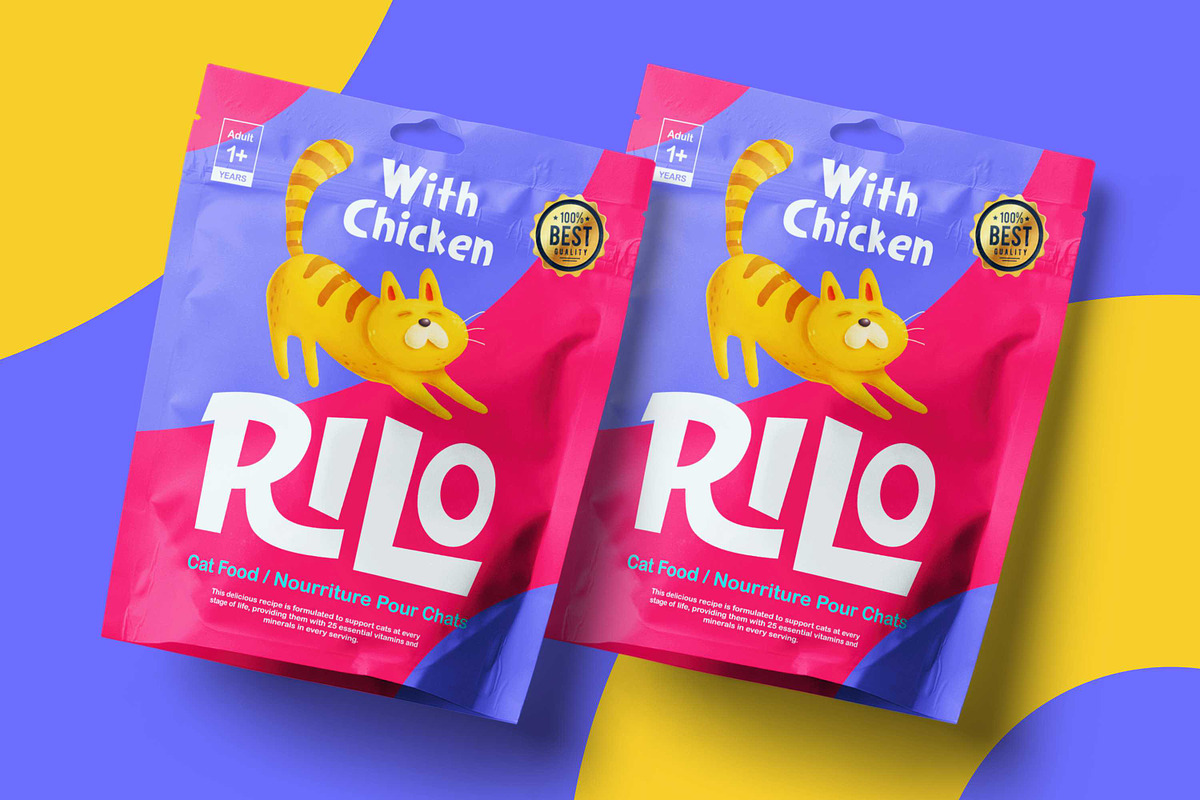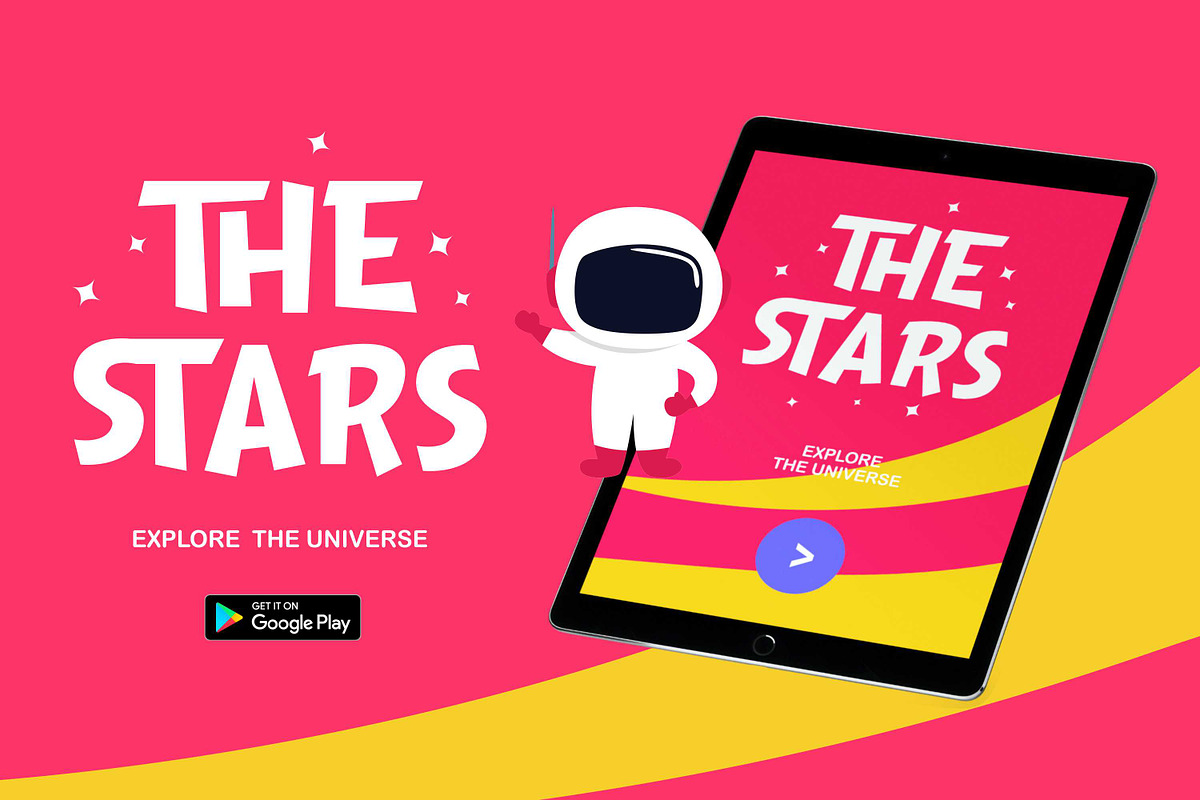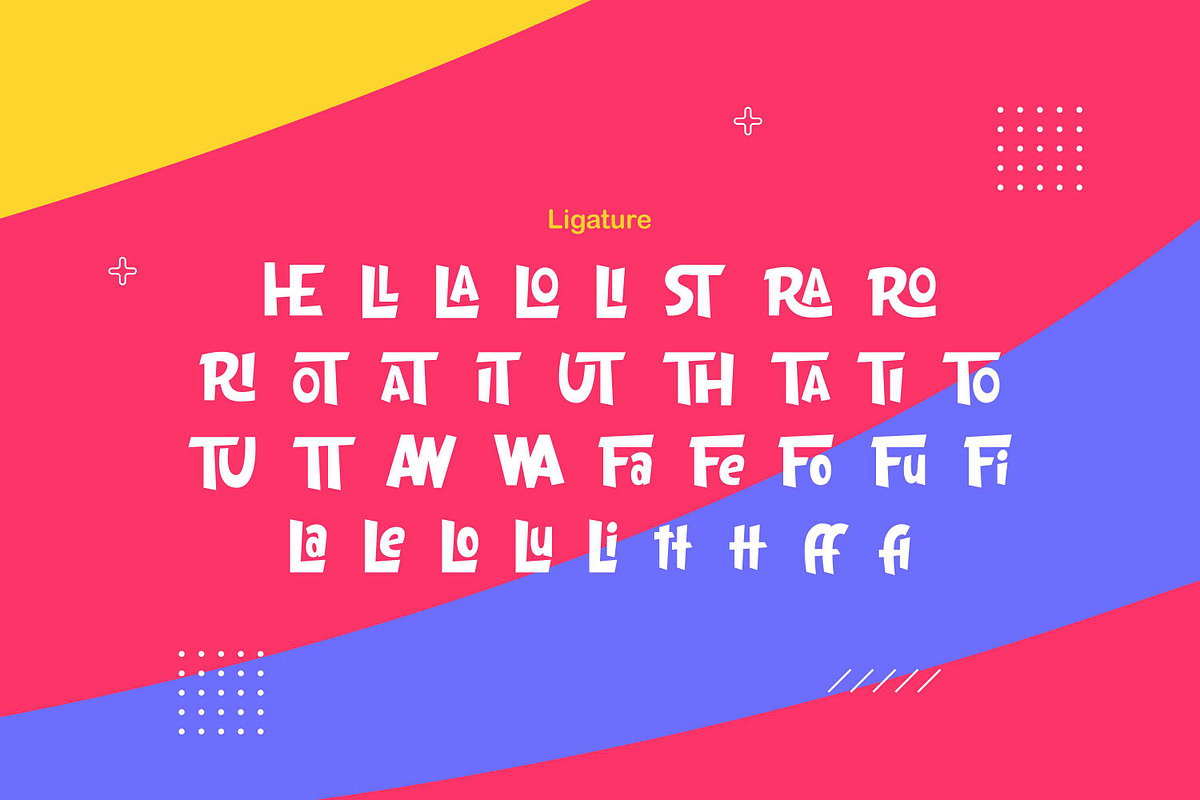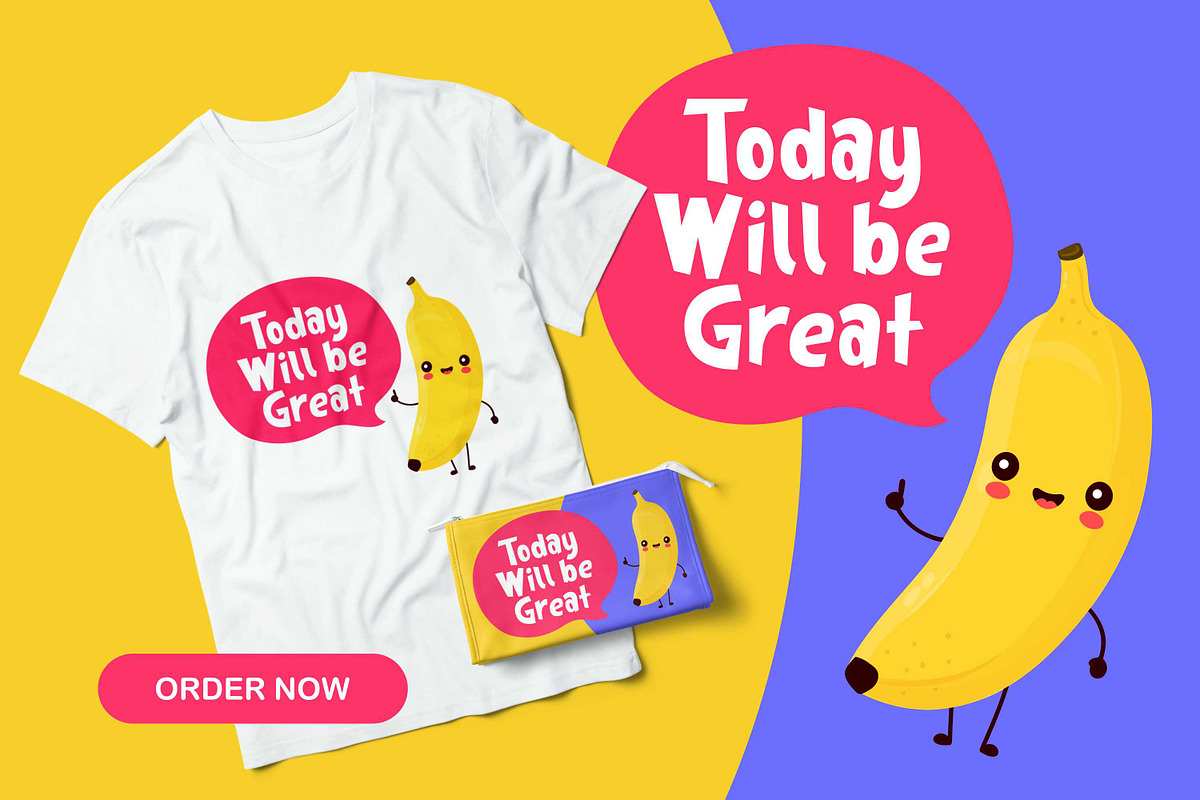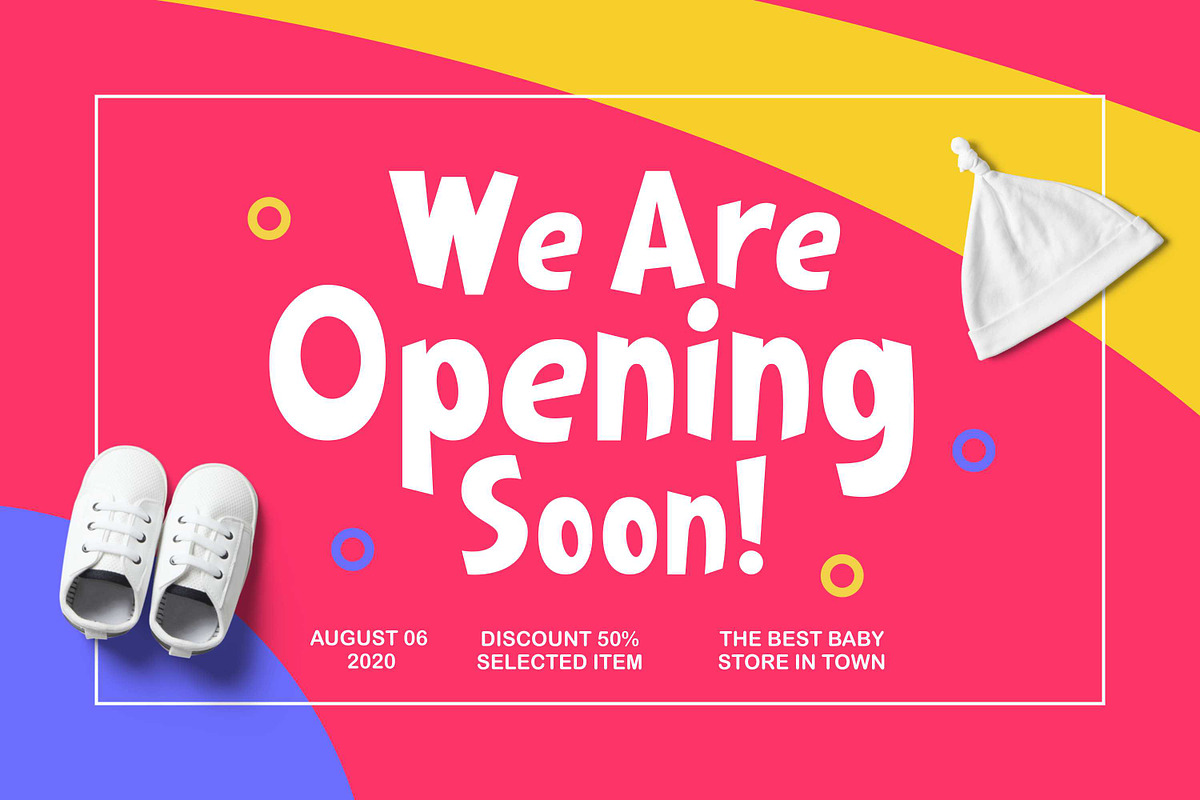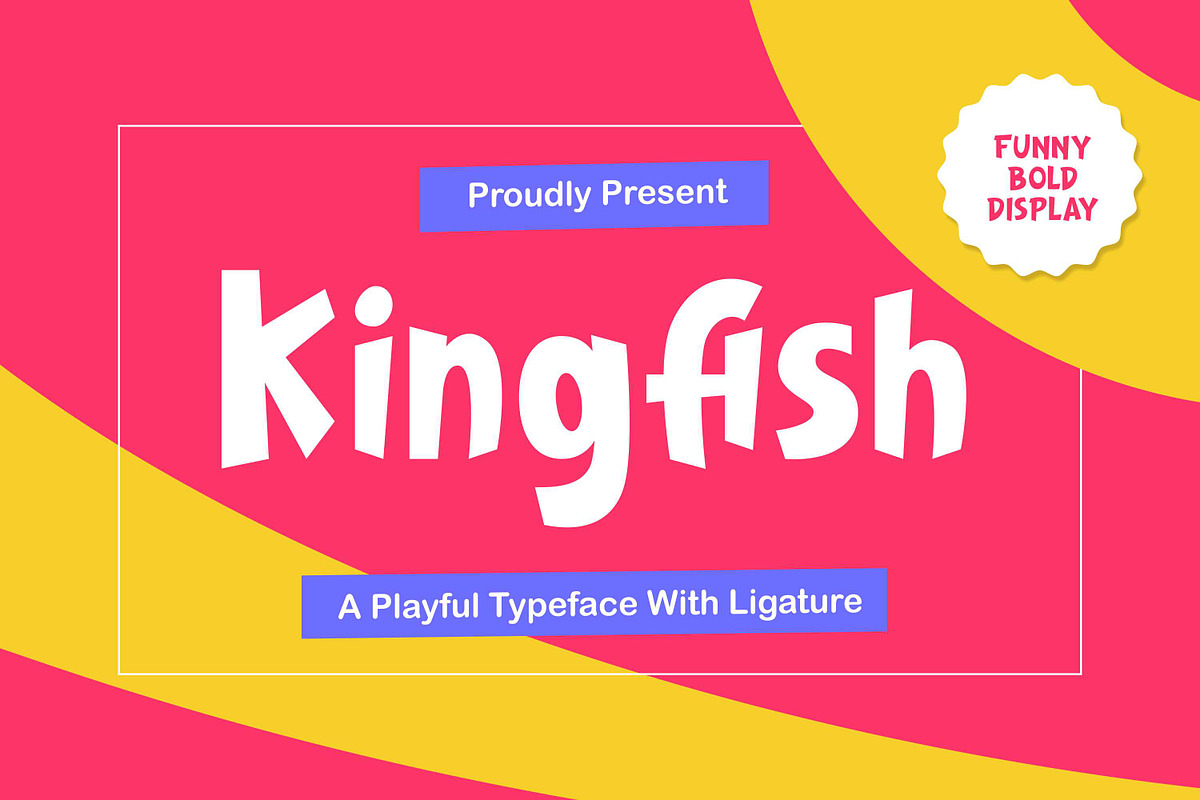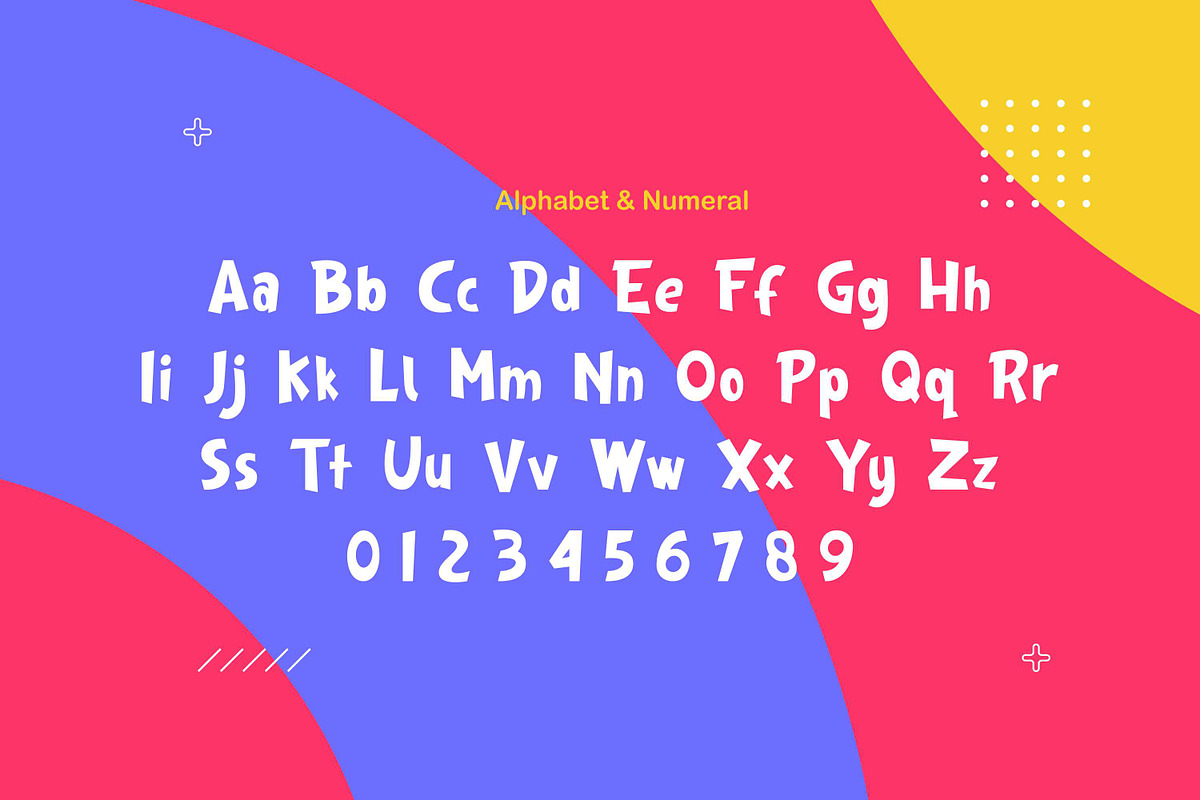
Kingfish - Playful Typeface
Kingfish is a perfectly playful display font with sweet ligatures. Inspired by handlettering marker pen with bold, thick and strong style. The unique characteristics of kingfish make it suitable for logotype, packaging, branding, heading, poster, apparel, title, and more kids content. With a set of ligature characters make your have many choices to be creative. It brings joyful and happiness to all of us.
- Kingfish is a perfectly playful display font with sweet ligatures.
- With a set of ligature characters make your have many choices to be creative.